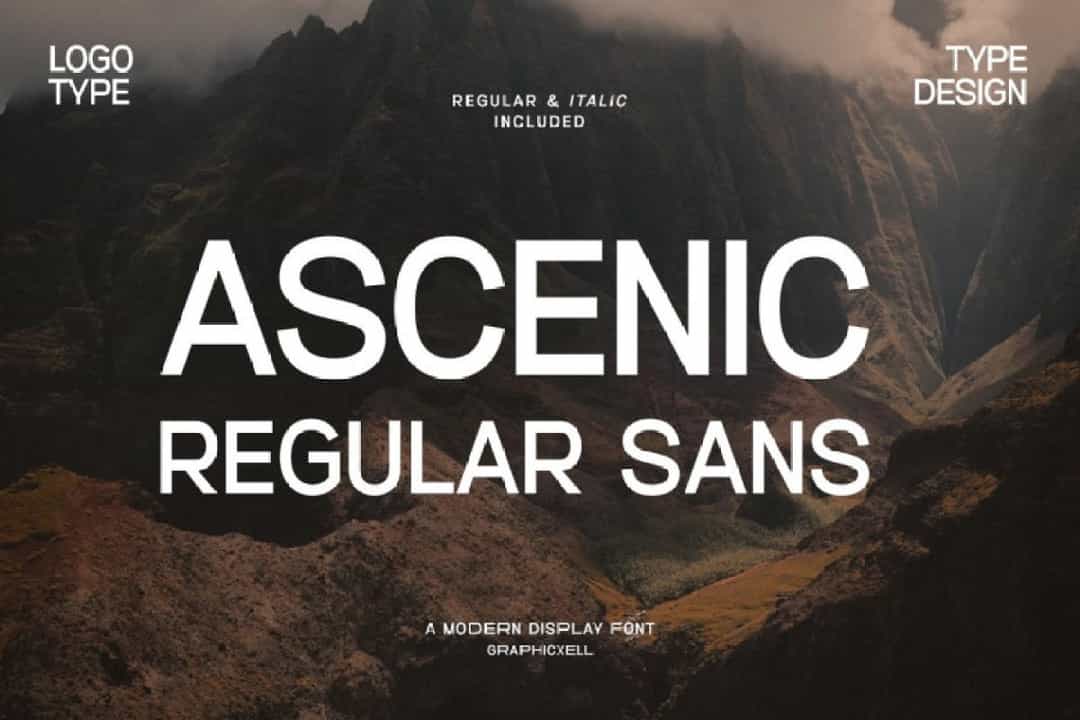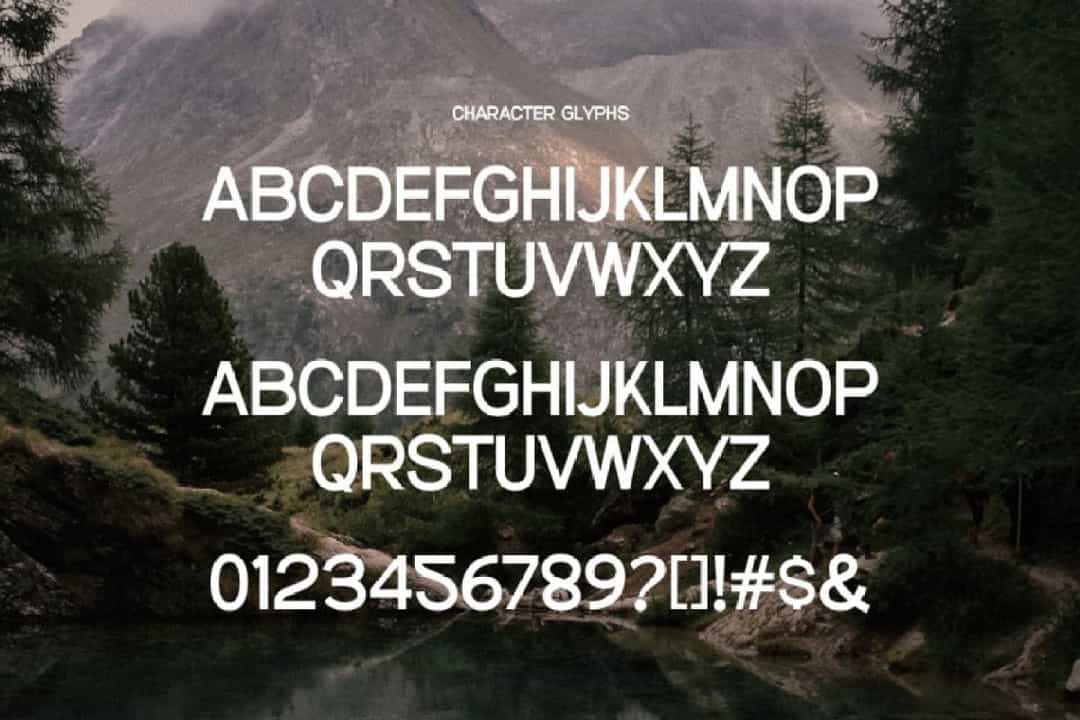
Ascenic is an eye-catching contemporary sans serif font featuring clean lines and sharp corners – ideal for modern designs. Its sharp edges and balanced design makes it suitable for logos titles and more! Additionally, Ascenic’s PUA encoded code gives instant access to its glyphs and swashes!